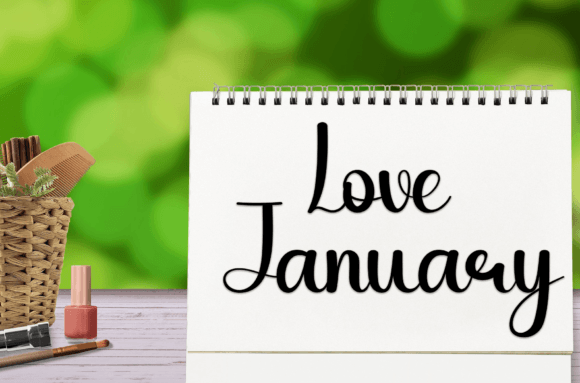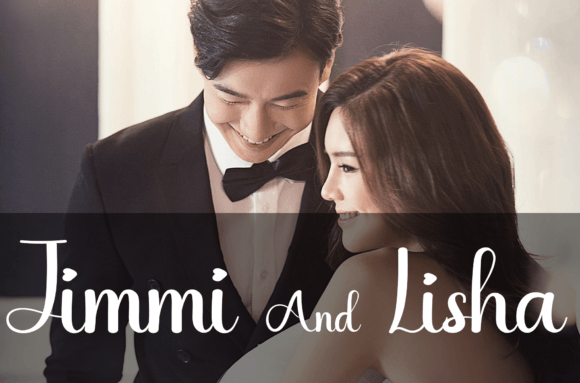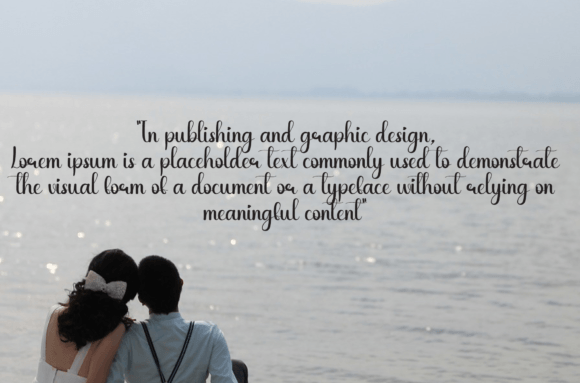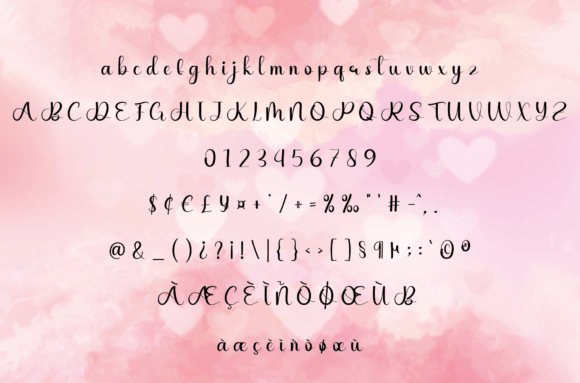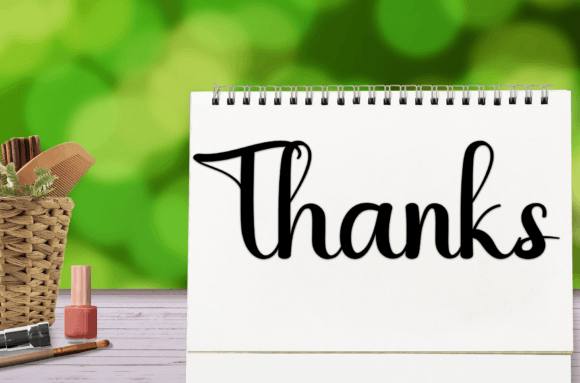
Introduction to Smoothies Font
Imagine you’re sipping a refreshing summer smoothie on a lazy Sunday afternoon, feeling the warmth of the sun and the coolness of the drink. That’s the kind of feeling you want to evoke with your next creative project, right? The Smoothies Font is here to help you achieve that, with its sweet and friendly handwritten style that’s perfect for adding a personal touch to your designs.
As a valuable design resource, the Smoothies Font offers a high-quality solution for designers who want to add a little extra love to their projects. Whether you’re working on a wedding invitation, a card, or any other design that needs a bit of whimsy, this font is sure to bring a smile to your face and your clients’. With its transparent background and free download option, you can easily integrate it into your next creative project and make it shine.
Key Features of Smoothies Font
- High-quality design resource with a unique, modern aesthetic suitable for creative projects.
- Comes in a transparent background version, allowing for seamless integration with any design.
- Smoothies Font is available in 5 different font styles (Regular, Bold, Italic, Bold Italic, Outline) to cater to diverse design needs.
- Features high-resolution design (scalable up to 2048×2048 pixels) for crisp and clear display on various screens and devices.
- Perfect for use in logos, branding materials, and other creative projects where a unique and modern font is required.
Honest Review: Smoothies Font
As a designer, I’m always on the lookout for high-quality design resources to elevate my creative projects. The Smoothies Font caught my attention with its modern and playful vibe, making it perfect for a smoothie shop or a fun food brand.
- ✨ Unique and modern design that sets it apart from other fonts
- ✨ Smooth edges and curves that add a touch of sophistication
- ⚠️ Limited font styles and weights, which may not be suitable for all design projects
- ⚠️ Not suitable for use on a transparent background, as the font may become difficult to read
Overall, I think the Smoothies Font is a great addition to any designer’s toolkit, especially for creative projects that require a modern and playful touch. The free download is a bonus, making it an excellent resource for designers on a budget.
With a little creativity, the Smoothies Font can be used in a variety of design projects, from logos and branding to packaging and advertising. I’d definitely recommend giving it a try.
Some common use cases for the Smoothies Font include:
– Creating eye-catching food labels and packaging designs.
– Designing smoothie and juice bar menus.
– Adding a fun and playful touch to marketing materials and advertisements.
– Using the font to create a cohesive brand identity for a business.